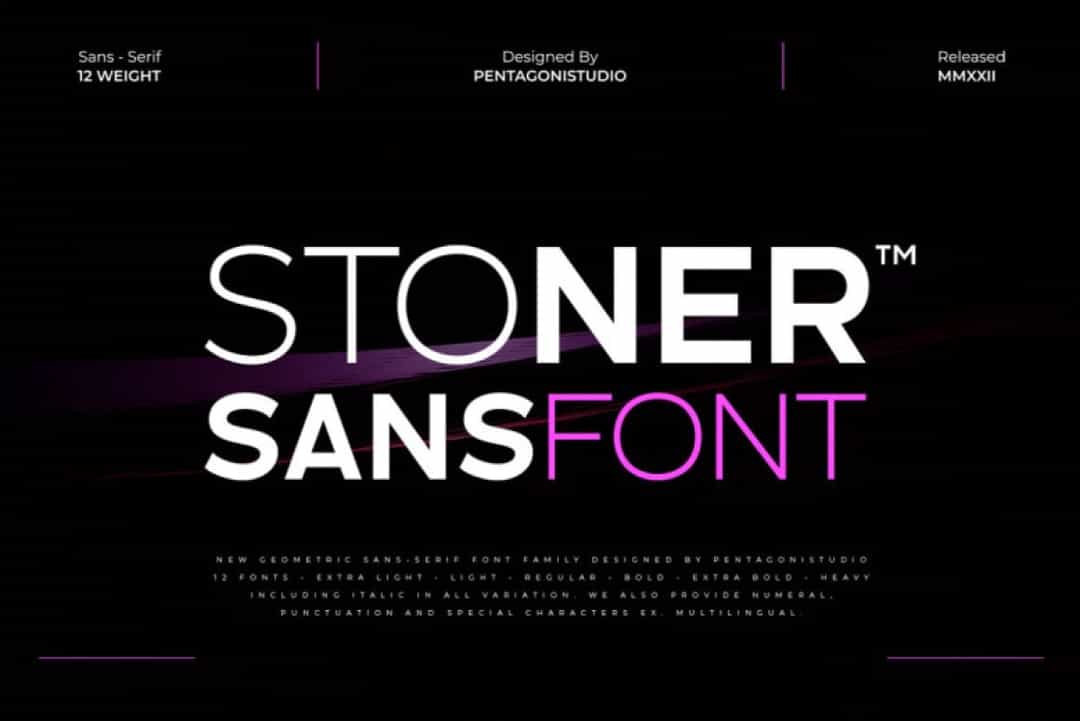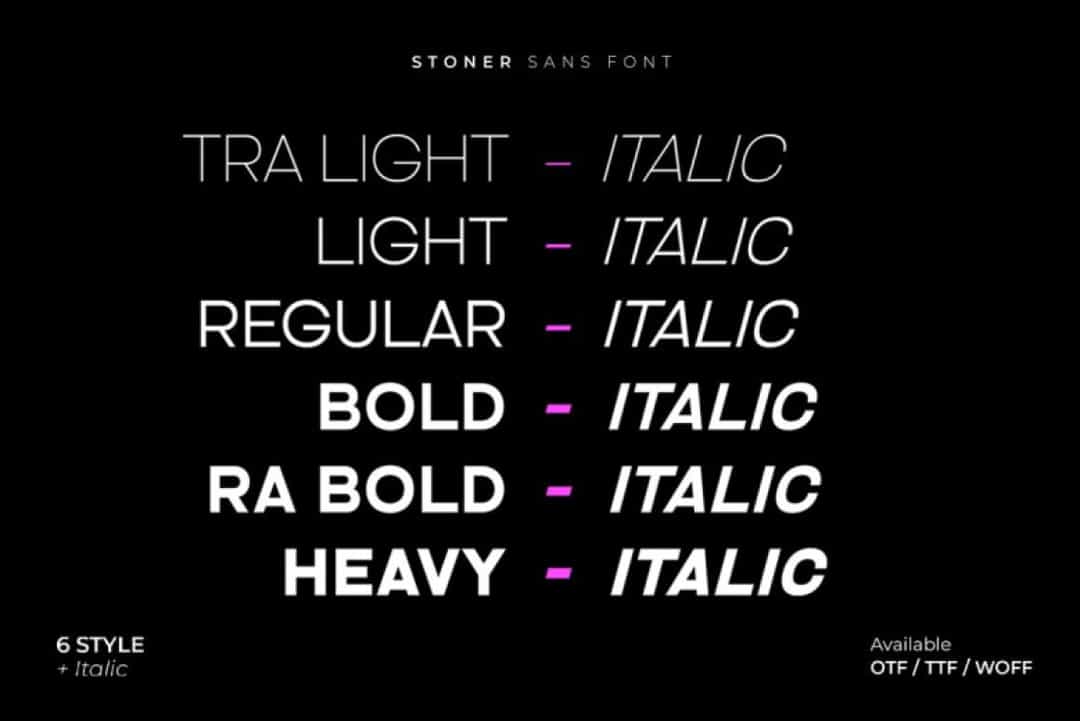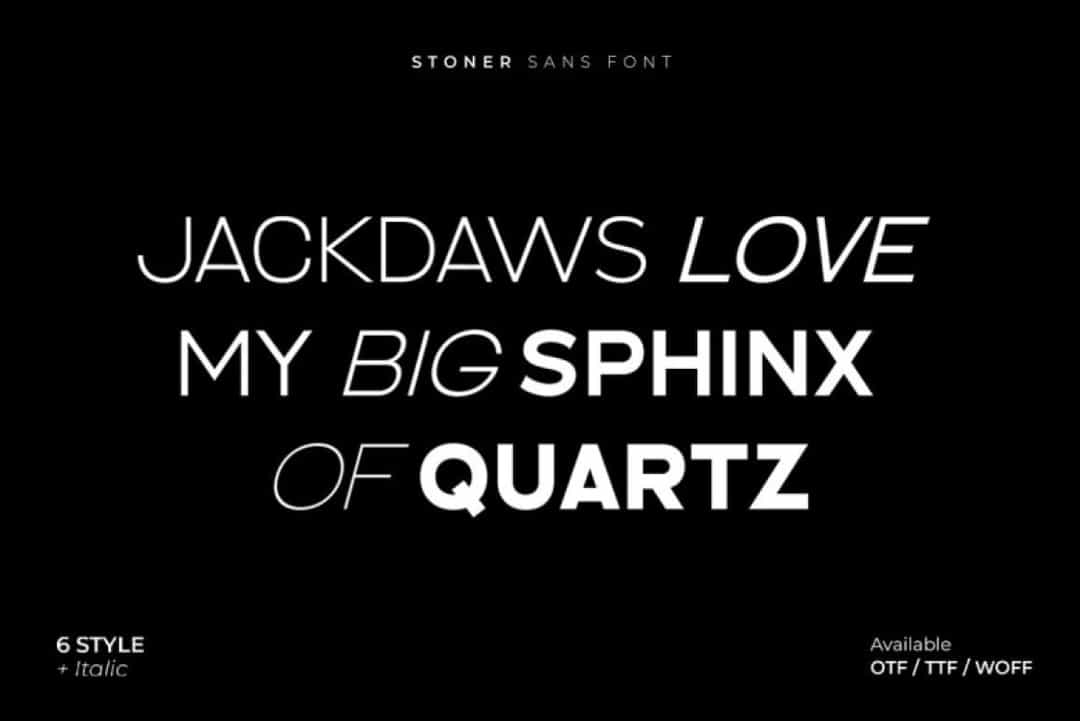
Stoner is a geometric sans serif font family designed with modern elegance in mind, drawing its inspiration from contemporary font styles. A powerful font character, Stoner will help your designs stand out and be more eye-catching than ever. Equipped with various built-in alternatives for use on logos badges web fonts magazines etc.